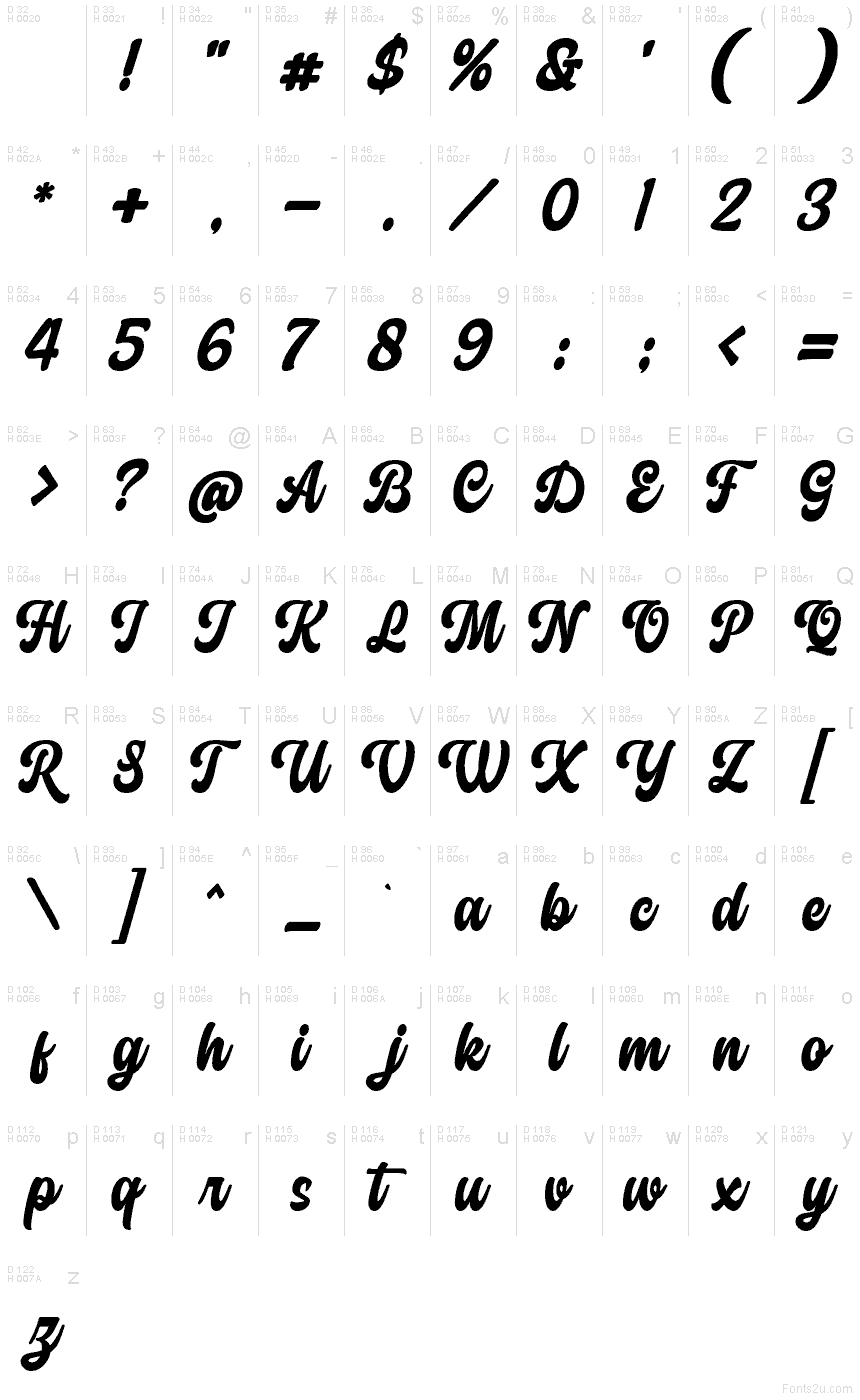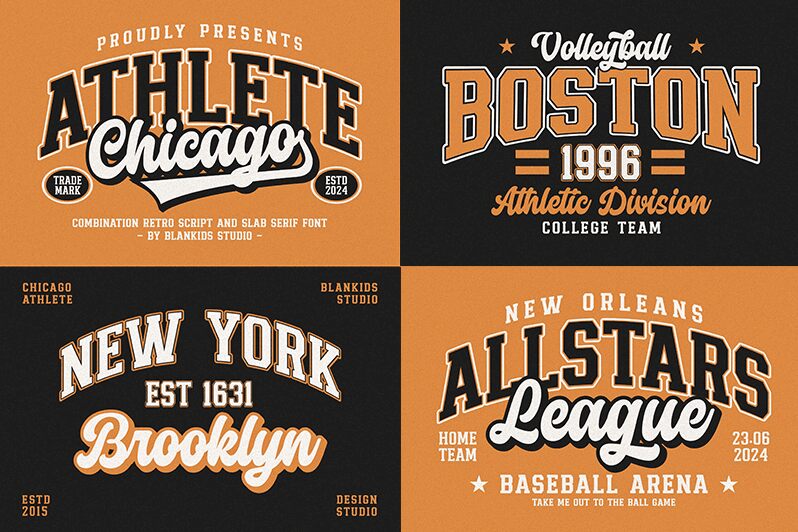
Chicago Athletic Regular
Chicago Athletic font by Blankids is a free bold retro brush display font. It leans into that vintage locker‑room energy with juicy, inky strokes, easy slant, and rounded terminals that snap together like a hand‑painted wordmark. The rhythm is confident and even, so titles lock up cleanly without fussy spacing, and the smooth stroke weight keeps it readable when scaled or arched on a curve.
Using Chicago Athletic, you’ll nail team logos, jersey lettering, gym signage, sports merch, vintage posters, beverage labels, and spirited social graphics. This free font shines on short, punchy names and monograms; give it breathing room and bump the tracking a hair for uppercase-heavy lines. Pair with a clean condensed sans for stats, dates, and taglines.